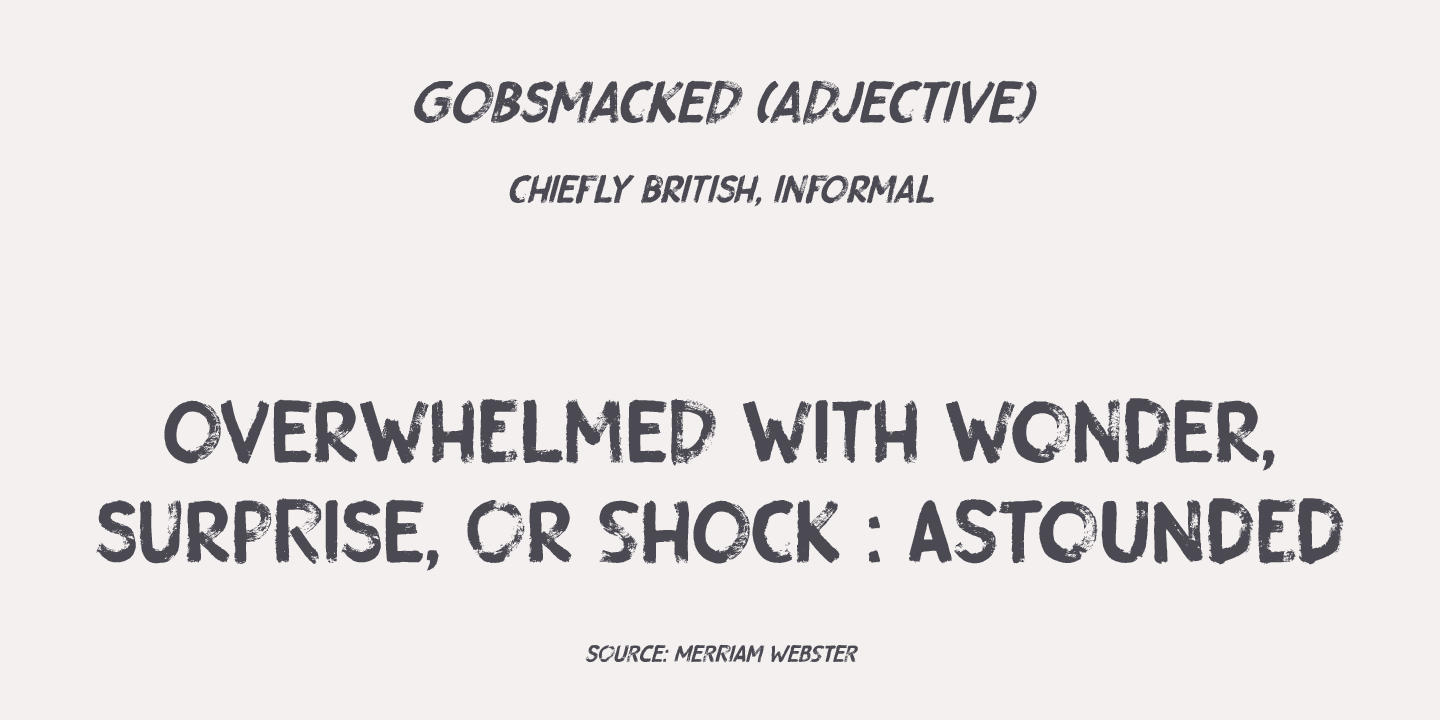
Gobsmacked Font is perfect for bold advertising campaigns, shocking promotional materials, eye-catching headline designs, dramatic movie posters, explosive marketing communications, attention-grabbing social media graphics, impactful product launches, and stunning brand announcements.
What makes Gobsmacked Font exciting is its jaw-dropping impact and absolutely stunning visual power that leaves audiences completely amazed and speechless. This extraordinary typeface combines explosive energy with sophisticated design, creating letters that strike with lightning force and captivate with undeniable presence. The font's shock-value character construction and dramatic aesthetic make it an essential tool for brands seeking to create unforgettable impressions and generate maximum audience engagement.
Gobsmacked Font family includes Regular, Bold, Light, Impact, Explosive, and Dramatic variations, plus attention-grabbing elements and dynamic effects. Each style maintains the font's stunning character while providing comprehensive flexibility for creating powerful shock-value design systems and dramatic brand communications that command immediate attention and lasting memory.
Impact design specialists consistently choose Gobsmacked Font Free Download for projects requiring maximum visual shock and stunning audience impact. This remarkable typeface has gained recognition among advertising agencies, entertainment companies, and high-impact marketing organizations worldwide. The font's ability to convey shock and dramatic amazement makes it perfect for brands operating in advertising, entertainment, and attention-demanding markets.
The design philosophy behind Gobsmacked Font emphasizes explosive impact and stunning visual drama. Its letterforms feature bold construction with carefully engineered details that reflect the overwhelming power and shocking beauty found in dramatic visual experiences and jaw-dropping revelations. The font's distinctive elements include explosive angles and dramatic character variations that create immediate emotional connection with audiences seeking shocking thrills and stunning visual experiences.
Creative agencies specializing in high-impact and dramatic branding frequently select Gobsmacked Font for clients requiring shocking communication and stunning brand expression. The font's versatility allows seamless integration into comprehensive impact branding systems, from explosive advertising campaigns to dramatic product reveals, ensuring consistent brand personality across all shocking and stunning touchpoints.
The technical execution of Gobsmacked Font demonstrates advanced understanding of impact typography requirements and dramatic design standards. Optimized for both large-scale advertising and digital shock applications, the font includes extensive OpenType features that support explosive design workflows. The comprehensive character set and dramatic effect library make it suitable for international impact campaigns requiring authentic shocking typography with global stunning appeal.